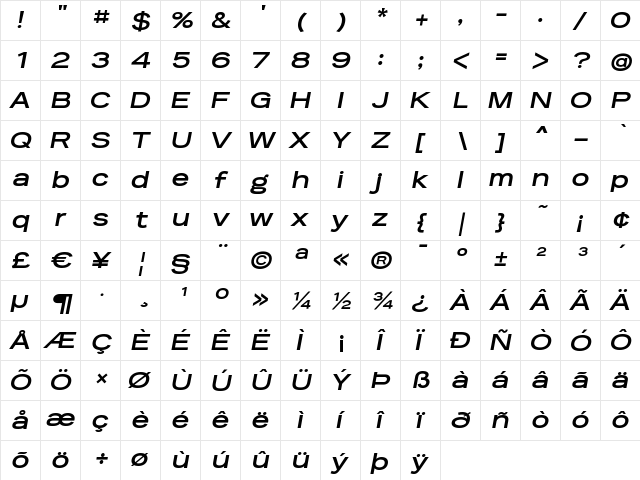
Reservation Wide Bold Oblique Font Preview
| Foundry | Silas Dilworth |
| Designer | Silas Dilworth |
Design Context for Reservation Wide Typeface
Reservation Wide takes a measured approach to typography — its balanced proportions and neutral character make it a reliable workhorse for both digital and print work. The dynamic lean of this cut emphasises speed and emphasis in any layout. The heavy weight commands attention and anchors typographic hierarchies.
Pro Tip: Use Reservation Wide for emphasis, pull quotes, and subheadings where its slanted energy can add rhythm to the layout.